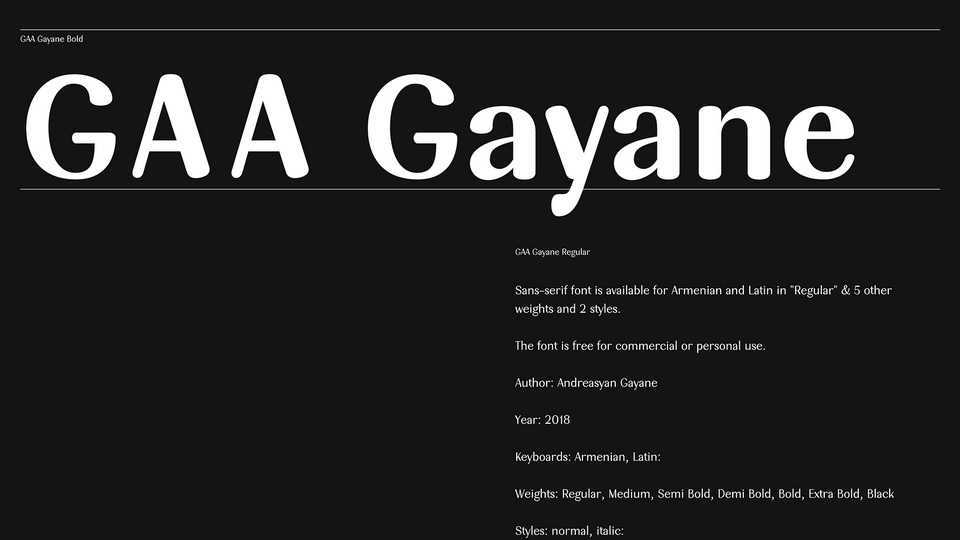
Download GAA Gayane font, a sans serif typeface with smooth and refined curves. It provides legibility and gives GAA Gayane font an harmonious and sensible appearance for both texts and headlines.
Designer: Gayane Andreasyan